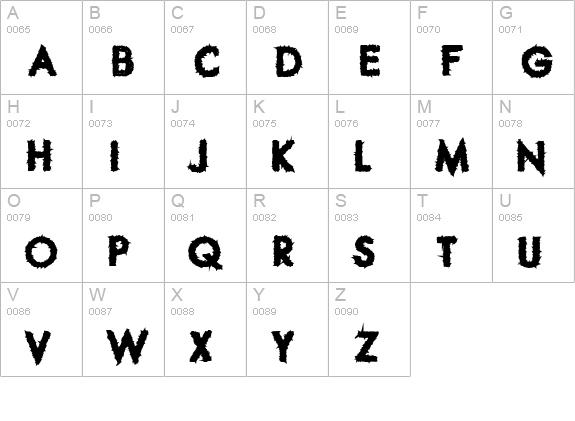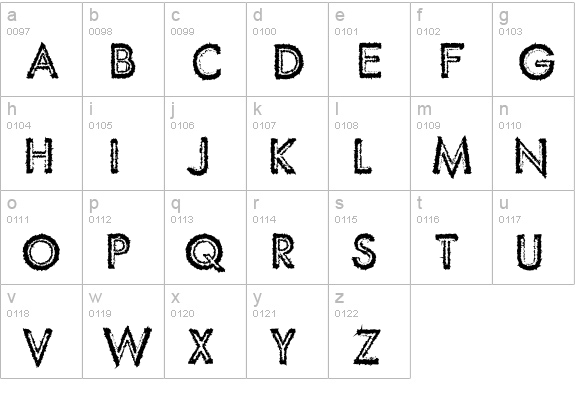
Spike Crumb Swollen Font Details
Introducing the striking and captivating Spike Crumb Swollen font, a dynamic typeface that is sure to make a bold statement in any design project. With its unique combination of sharp edges and exaggerated curves, this font exudes a sense of edgy sophistication, commanding attention and leaving a lasting impression. Spike Crumb Swollen font is perfect for those seeking to inject a touch of urban flair into their designs. Whether you're working on a logo, poster, website, or any other creative endeavor, this font will effortlessly add a touch of modernity and style. One of the most remarkable aspects of Spike Crumb Swollen font is that it is available for free! That's right, this stunning typeface can be downloaded at absolutely no cost from FontsMarket.com. This makes it an ideal choice for designers on a budget or those simply looking for a high-quality font without breaking the bank. Designed with versatility in mind, Spike Crumb Swollen font is suitable for a wide range of design projects, from fashion and music to advertising and branding. Its bold and attention-grabbing appearance ensures that your message will be communicated with impact and authority. With its extensive character set and meticulous attention to detail, Spike Crumb Swollen font offers endless possibilities for creative expression. Whether you're looking to create eye-catching headlines or captivating body text, this font has you covered. So why wait? Embrace the bold and mesmerizing Spike Crumb Swollen font today. Download it for free at FontsMarket.com and unleash your creativity like never before. Elevate your designs and leave a lasting impression with this extraordinary typeface.